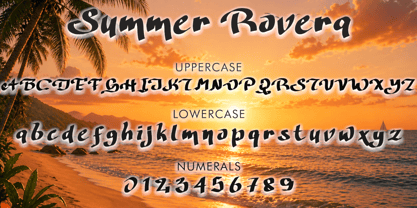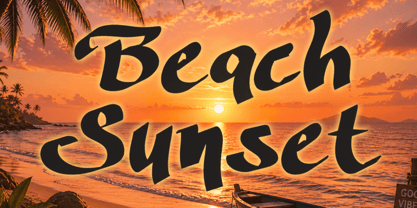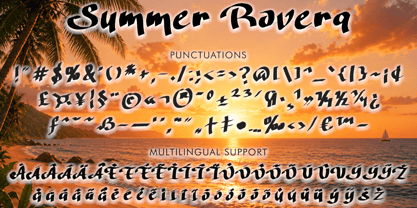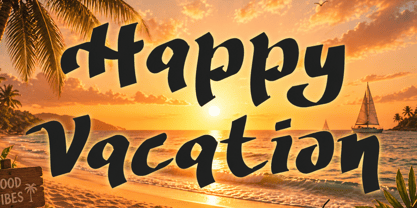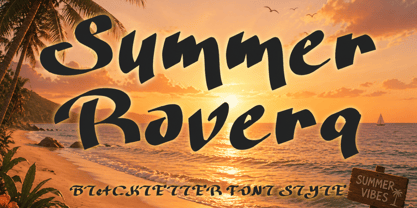
Summer Rovera
by Yoga Letter
The Summer Rovera Font Family was designed by Isroni Yoga Prasetya and published by Yoga Letter. Summer Rovera contains 1 styles. More about this family
“Summer Rovera” is an elegant and modern brush font. It features uppercase and lowercase letters, numbers, punctuation, and multilingual support. It’s suitable for Easter, holidays, vacation, back to school, tattoos, social media, spring, summer, Halloween, movie titles, comic titles, stickers, posters, banners, prints, branding, youtube, christmas and more.
Designers: Isroni Yoga Prasetya
Foundry: Yoga Letter